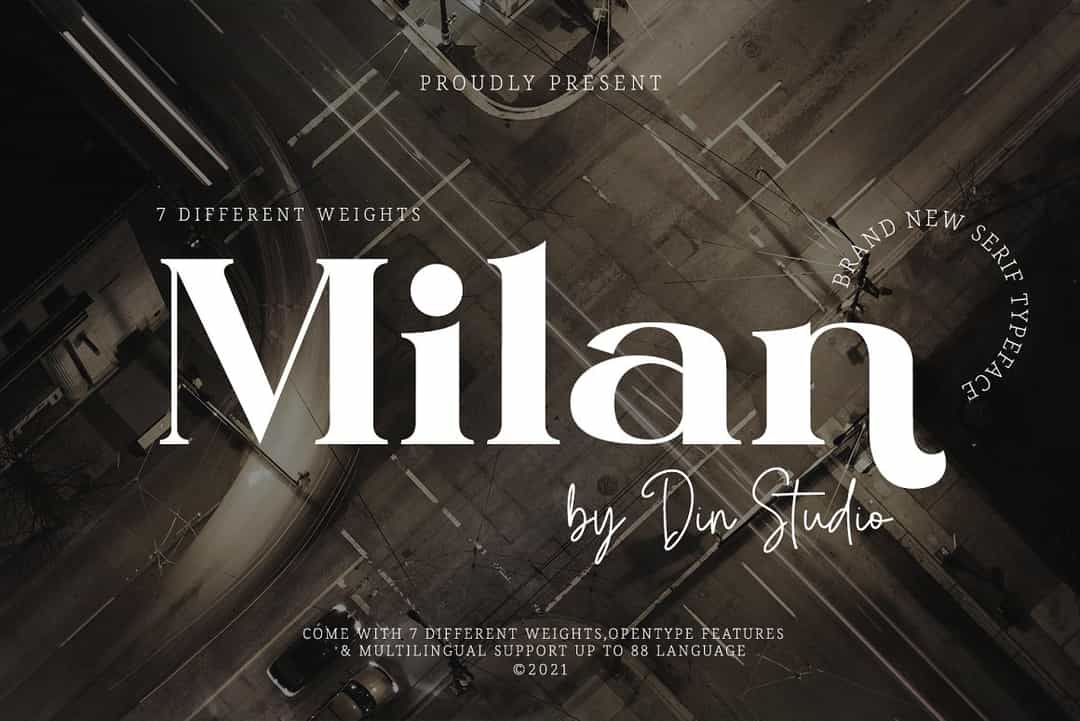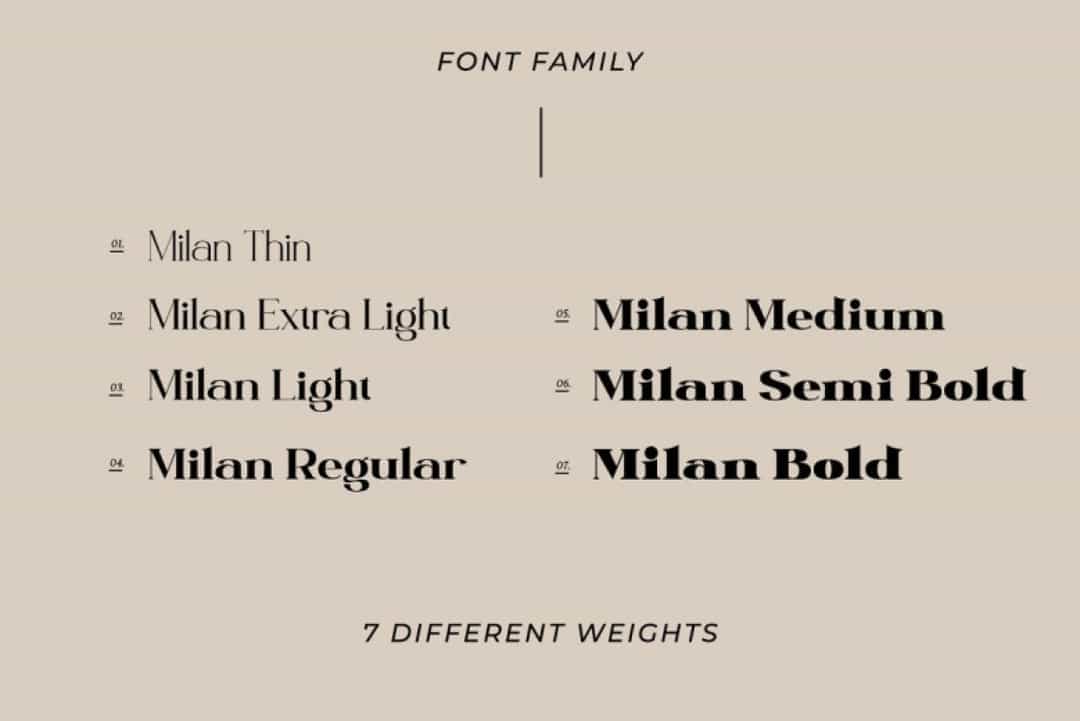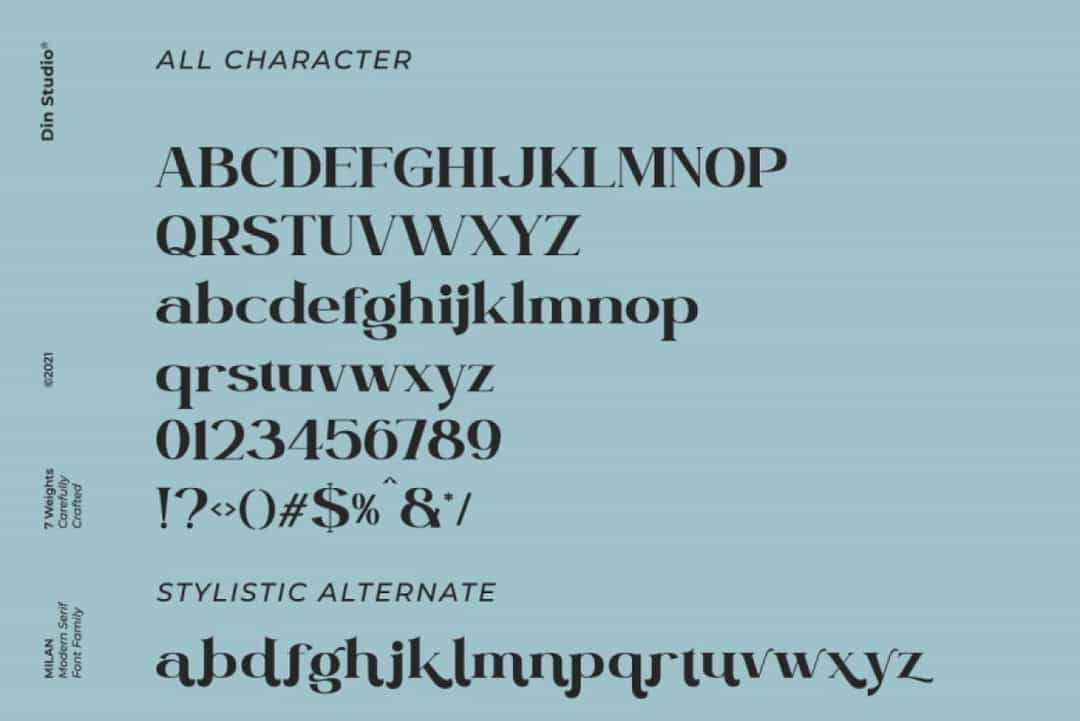
Discover Milan Font, part of the Serif collection—a versatile and unique font perfect for adding a personal touch to your projects. Download it for free and enjoy crafting designs with style, from invitations to social media posts. This font is available exclusively for personal use, giving you the freedom to create without limits. Unlock your creativity with Milan Font today!
Milan Serif Font is an impressive collection of software that will bring satisfaction. We provide you with an ideal choice for coloring your logo or project with elegance fonts that stand out. This serif font family includes both lowercase and uppercase versions to provide variety while remaining easy to comprehend.